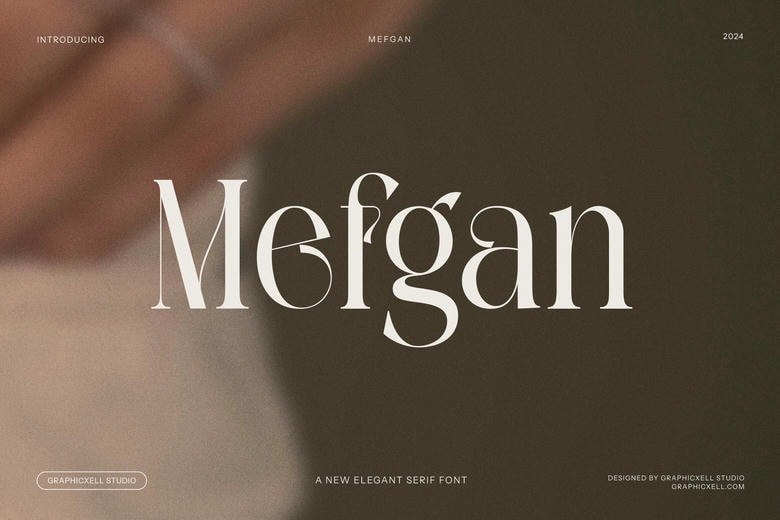
Mefgan is a Modern Serif typeface that seamlessly blends modern sophistication with vintage elegance. With its graceful letterforms and refined serifs, this font is the perfect choice for anyone seeking to evoke both timeless beauty and contemporary flair in their designs. Mefgan stands out with its unique structure—slender, clean lines paired with subtle yet striking curves, creating a modern yet nostalgic feel that captures the essence of classic luxury.
The Mefgan font is designed to make a statement, offering elegance without being ostentatious. Its delicate serifs and balanced proportions give it a sense of refinement, while its modern touches add a fresh, forward-thinking energy. Ideal for a wide range of design projects, Mefgan excels in everything from branding and logos to magazine layouts and seasonal greetings. Whether you’re crafting a New Year’s card, promoting a Black Friday sale, or designing a high-end food label, this font brings sophistication and style to every project.
The versatility of Mefgan Modern Serif ensures it can be used across both digital and print platforms, elevating the aesthetic of your work without overwhelming it. Its clean lines and timeless appeal make it perfect for everything from minimalist designs to more elaborate layouts, always striking the right balance between modernism and tradition.
With Mefgan, your designs won’t just communicate—they’ll captivate. This typeface is a celebration of both old-world charm and contemporary elegance, making it the perfect choice for any creative project that demands sophistication, style, and a touch of vintage class.